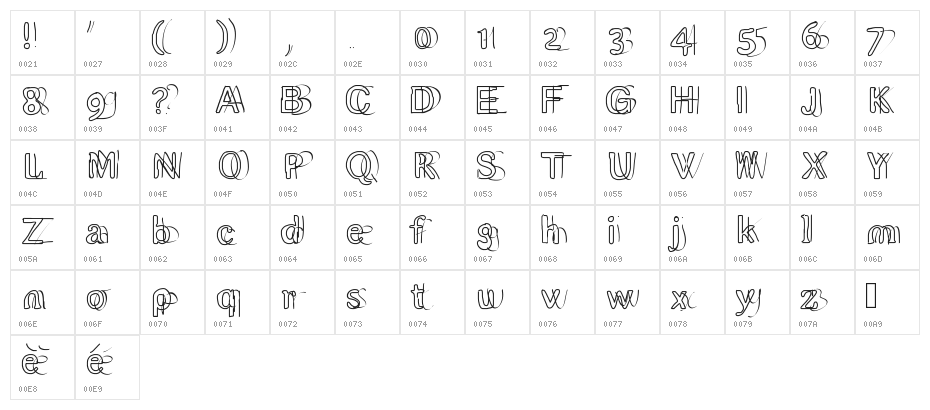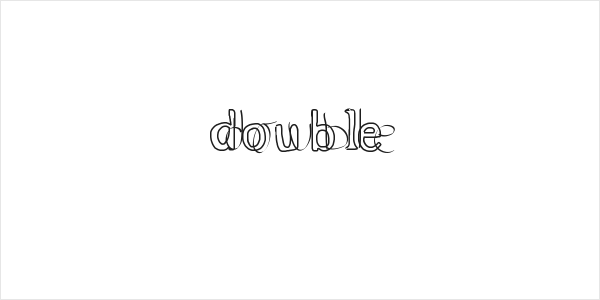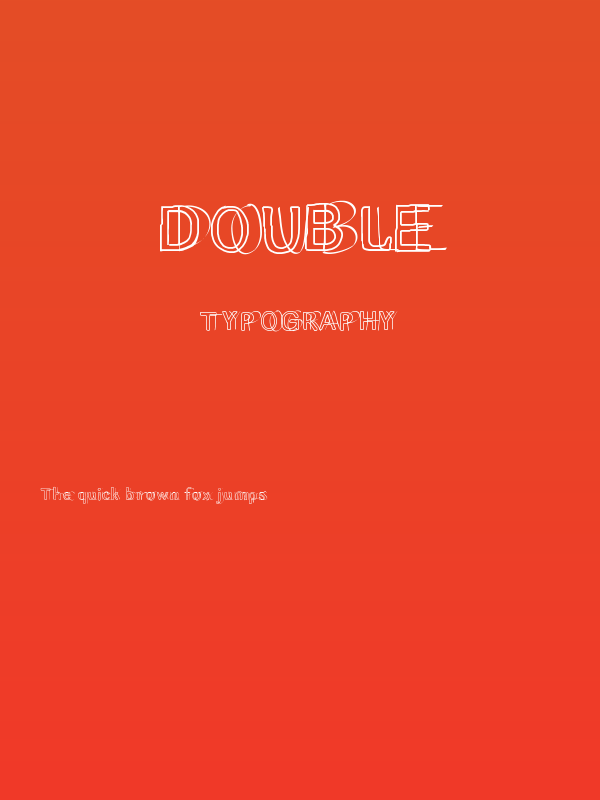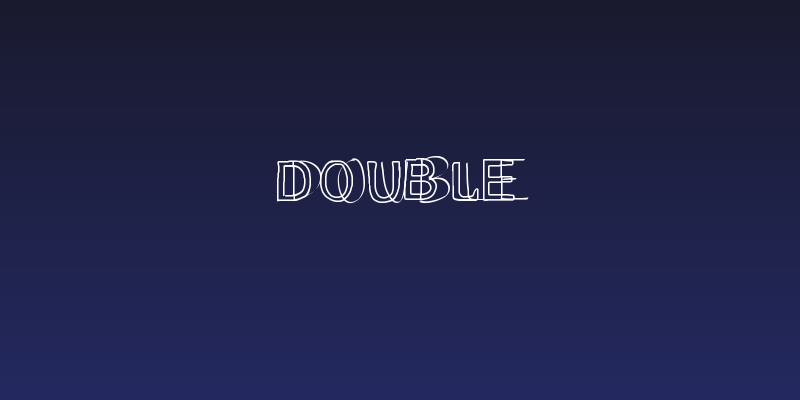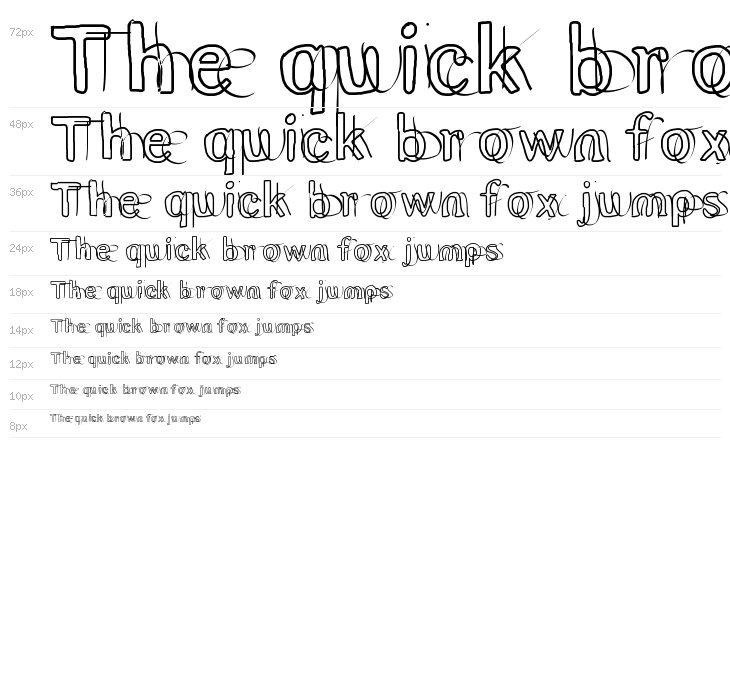
double Font
double Description
This font features a unique double-outline style that gives it a bold and dynamic appearance. Each character is outlined twice, creating a layered effect that adds depth and visual interest. The uppercase and lowercase letters maintain a consistent style, with rounded edges and a playful, slightly irregular form. Numbers and special characters follow the same design principles, ensuring a cohesive look across all elements. The font's distinctive style makes it stand out, making it ideal for creative and artistic projects.